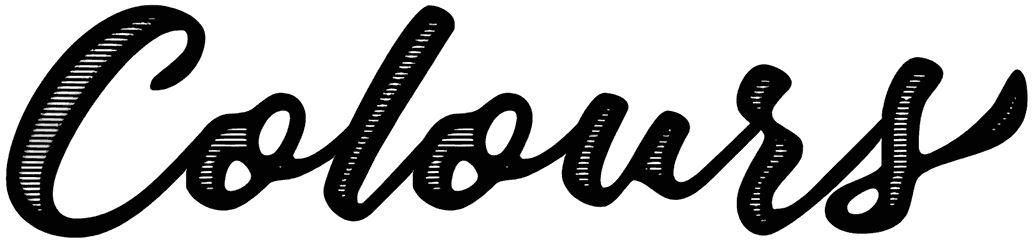
Colours Font
The Colours font is one of the script fonts that offer a classic, luxurious feeling. This font is strongly inclined to the decorative space and has thick letters with painted elements that give it an elegant look.
This calligraphy font has elongated twists with a luster that can double its sense of luxury. Thus, it’s a perfect option for new brands that need a unique logo, letterhead, and sign design that can look great without numbers.